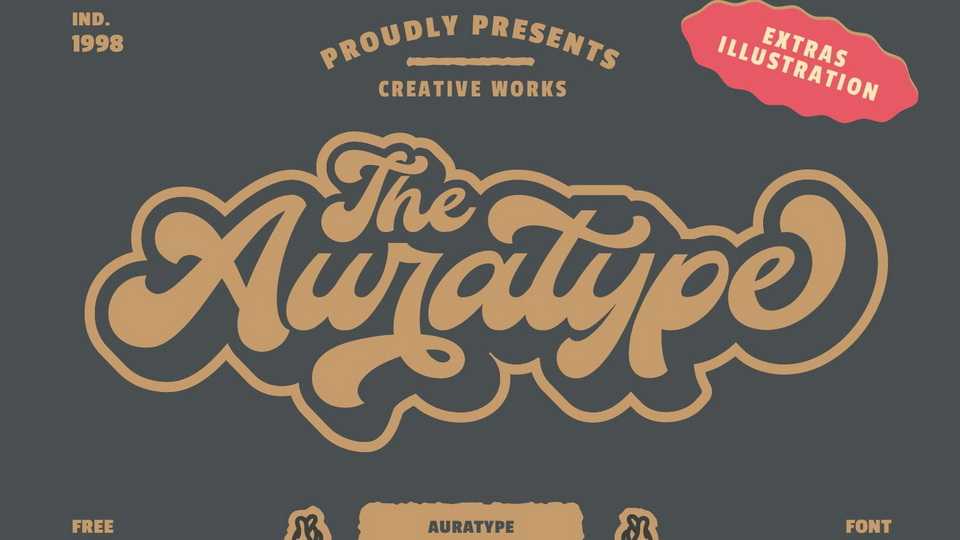
Download The Auratype font, a retro typeface who inspired by the 60s – 80s designs with more unique explored style like swash and alternate character. The Auratype font made from manual sketch with many many scratch then finished to font.